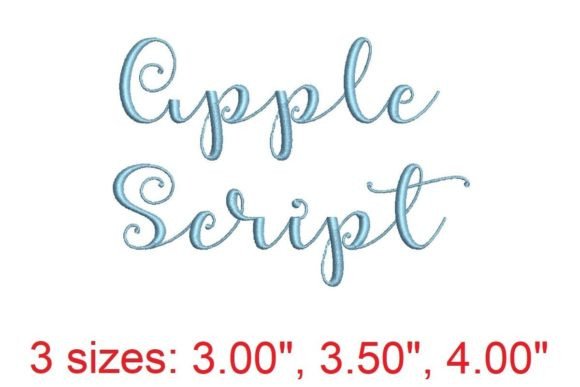
Apple Script Embroidery Font Review
As an embroidery designer with years of experience in custom apparel and boutique branding, I always look for fonts that add personality without overwhelming the design. The Apple Script Embroidery Font from Creative Fabrica caught my attention for its elegant, flowing style that feels both refined and approachable. This review dives into how it performs on a range of apparel projects and whether it’s a valuable addition to your digital embroidery library.
First Impressions: A Delicate Balance of Elegance and Playfulness
The Apple Script Embroidery Font immediately stands out with its soft curves and looping strokes. It has a visual personality that leans toward the feminine and slightly whimsical, making it ideal for brands aiming for a charming, handcrafted aesthetic. The detail level is high enough to showcase intricate stitching but not so dense that it becomes overwhelming on smaller placements.
This font doesn’t feel overly bold or modern—it has a classic, almost vintage-inspired charm that can elevate a simple sweatshirt or hoodie design. Its decorative strength lies in its ability to add a touch of sophistication without dominating the garment. Whether you're creating a monogram or a statement back design, Apple Script offers a versatile baseline for creative expression.
Apparel Use Cases: From Sweatshirts to Tote Bags
For sweatshirt embroidery, Apple Script works well on larger areas like the chest or back. Its flowing lines adapt nicely to the curved surface of a hoodie, especially when placed centrally. On hoodie chest placement, it adds a subtle yet noticeable flair that complements casual wear without feeling too formal.
When used as sleeve accents, the font maintains clarity and elegance even in smaller sizes. It’s also effective for t-shirt embroidery, where its delicate nature pairs well with lightweight fabrics. For tote bag design, Apple Script brings a personal, handmade feel that resonates with customers looking for unique, customizable items.
Boutique brands and Etsy sellers will appreciate how this font enhances custom apparel and lifestyle product photos. Its clean lines make it easy to pair with different thread colors, allowing for flexibility in design themes. Whether you're working on a seasonal collection or a limited-edition piece, Apple Script offers a cohesive visual language.
Performance on Different Fabrics and Designs
On dark garments, Apple Script shines with high contrast, especially when paired with white or light-colored threads. However, on light or pastel fabrics, it may require careful selection of thread colors to ensure visibility. For stretchy fabric or fleece, the font holds up well as long as proper stabilizer is used to prevent distortion during stitching.
Ribbed fabric can be a challenge for some fonts, but Apple Script's fluidity helps it maintain shape and definition. When considering curved surfaces or tiny lettering, it’s important to test the design at scale before committing to production. The font’s structure allows for clear legibility even at smaller sizes, making it suitable for small chest placement or back designs.
Impact on Brand Identity and Customer Engagement
Apple Script Embroidery Font can significantly influence how a brand is perceived. Its soft, artistic style aligns well with handmade product aesthetics, which can build trust and emotional connection with customers. For small shop product and commercial embroidery projects, using this font can help establish a consistent visual identity across all pieces.
From a printable mockup perspective, Apple Script provides a polished look that translates well to social media graphics and Etsy listings. It adds a professional touch that can differentiate your offerings in a competitive market. When paired with the right color palette and placement, it enhances visual consistency and makes your finished product more appealing to buyers.
Practical Designer Notes: Testing and Preparation
Before finalizing any project with Apple Script Embroidery Font, I recommend testing it on scrap fabric to evaluate how the stitches interact with the texture. Pay close attention to stitch density—too much could cause the design to look cluttered, while too little might result in a weak appearance.
Confirm the hoop size required for the design and ensure it matches your machine’s capabilities. Also, review the embroidery file format and licensing details on Creative Fabrica to avoid any surprises during production. For dense stitch areas, consider using a medium-weight stabilizer to keep the fabric flat and prevent puckering.
If you're planning to sell finished apparel, always check the digital embroidery file specifications and ensure the design is optimized for commercial use. Apple Script is a great choice for back to school themed collections, but its versatility extends beyond that, making it suitable for year-round use.
For those exploring Creative Fabrica embroidery options, Apple Script is worth considering for its potential to elevate your designs and strengthen your brand’s visual appeal. With proper preparation and testing, it can become a go-to font for many of your upcoming projects.